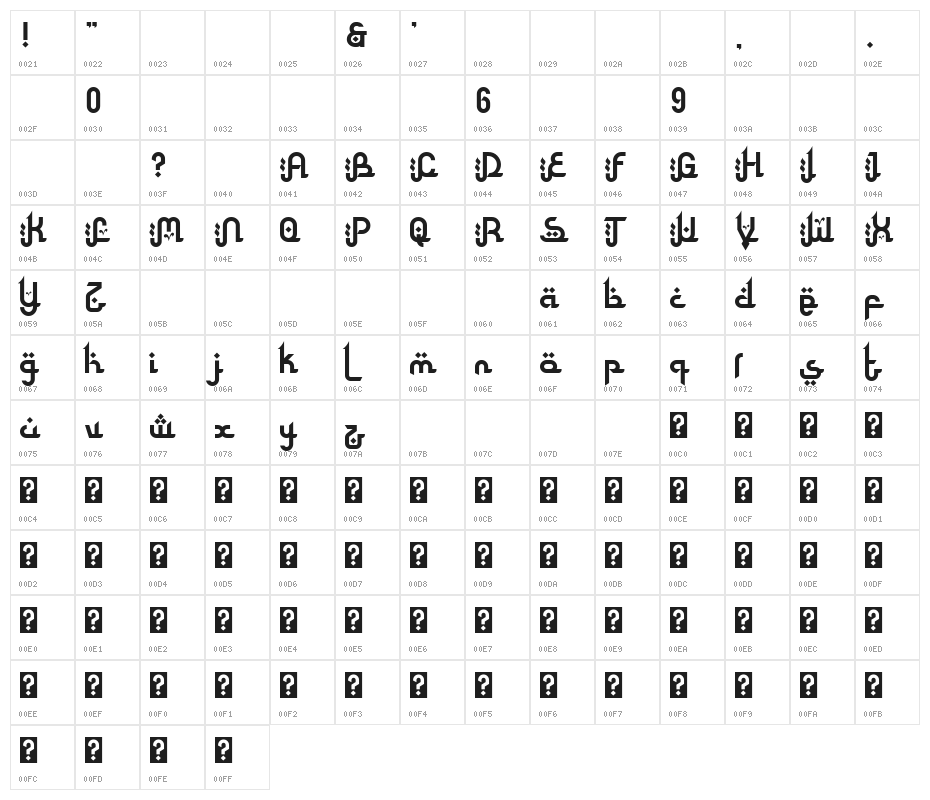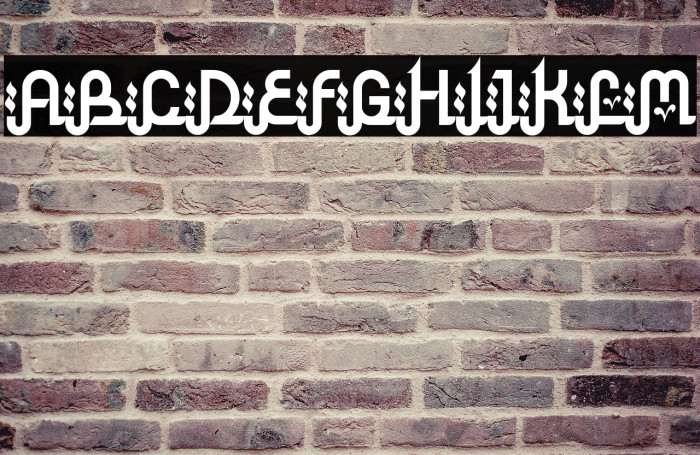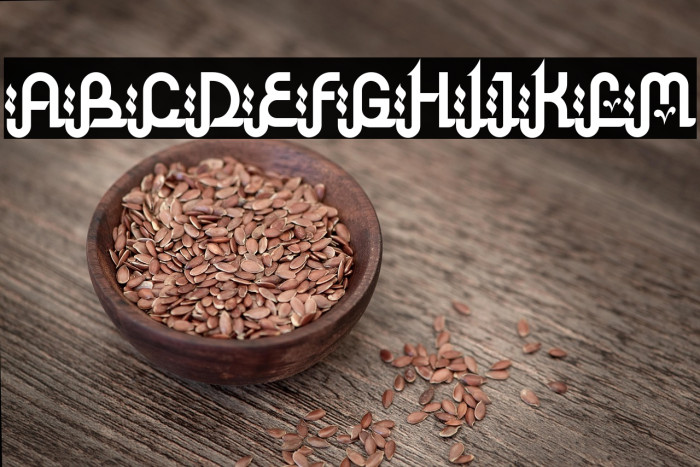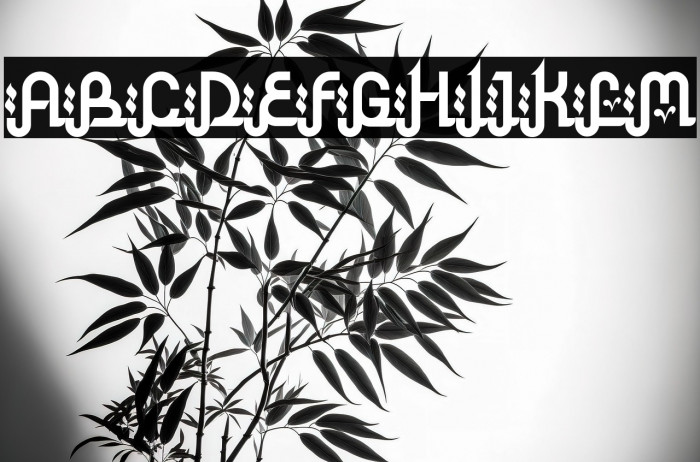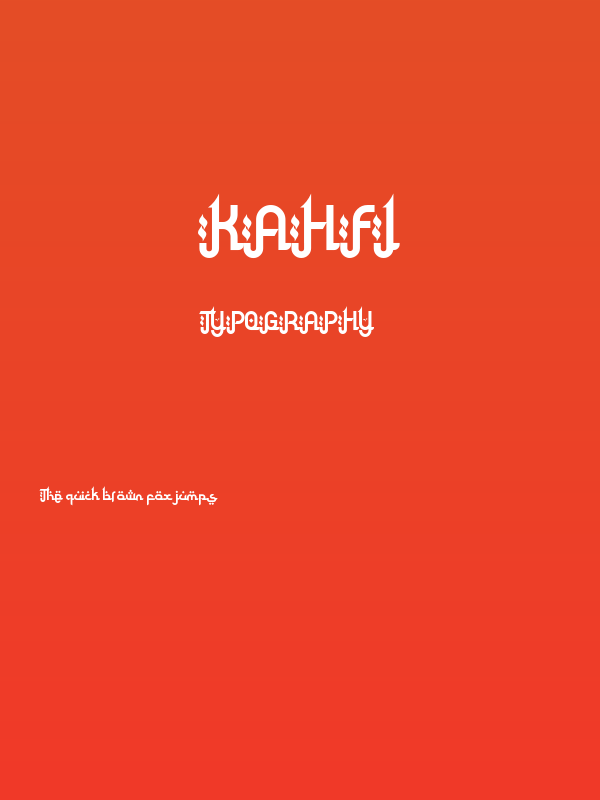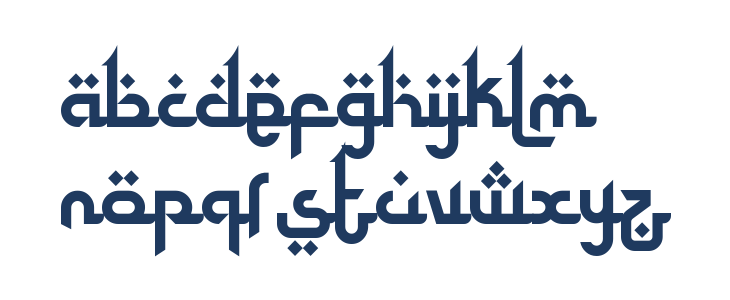
Kahfi Font
Kahfi Description
This font features a unique blend of geometric shapes and intricate details, creating a visually striking appearance. The uppercase letters are characterized by bold, angular lines with decorative elements that add a touch of elegance. The lowercase letters maintain a similar style, offering consistency throughout the typeface. Numbers and special characters are designed to match the overall aesthetic, ensuring a cohesive look. The font's distinct style makes it suitable for projects that require a bold and artistic touch, such as branding, posters, and headlines. Its decorative nature may not be ideal for body text but excels in making a statement.
| Proposed Projects | Ideal for branding, posters, headlines, and artistic projects requiring a bold statement. |